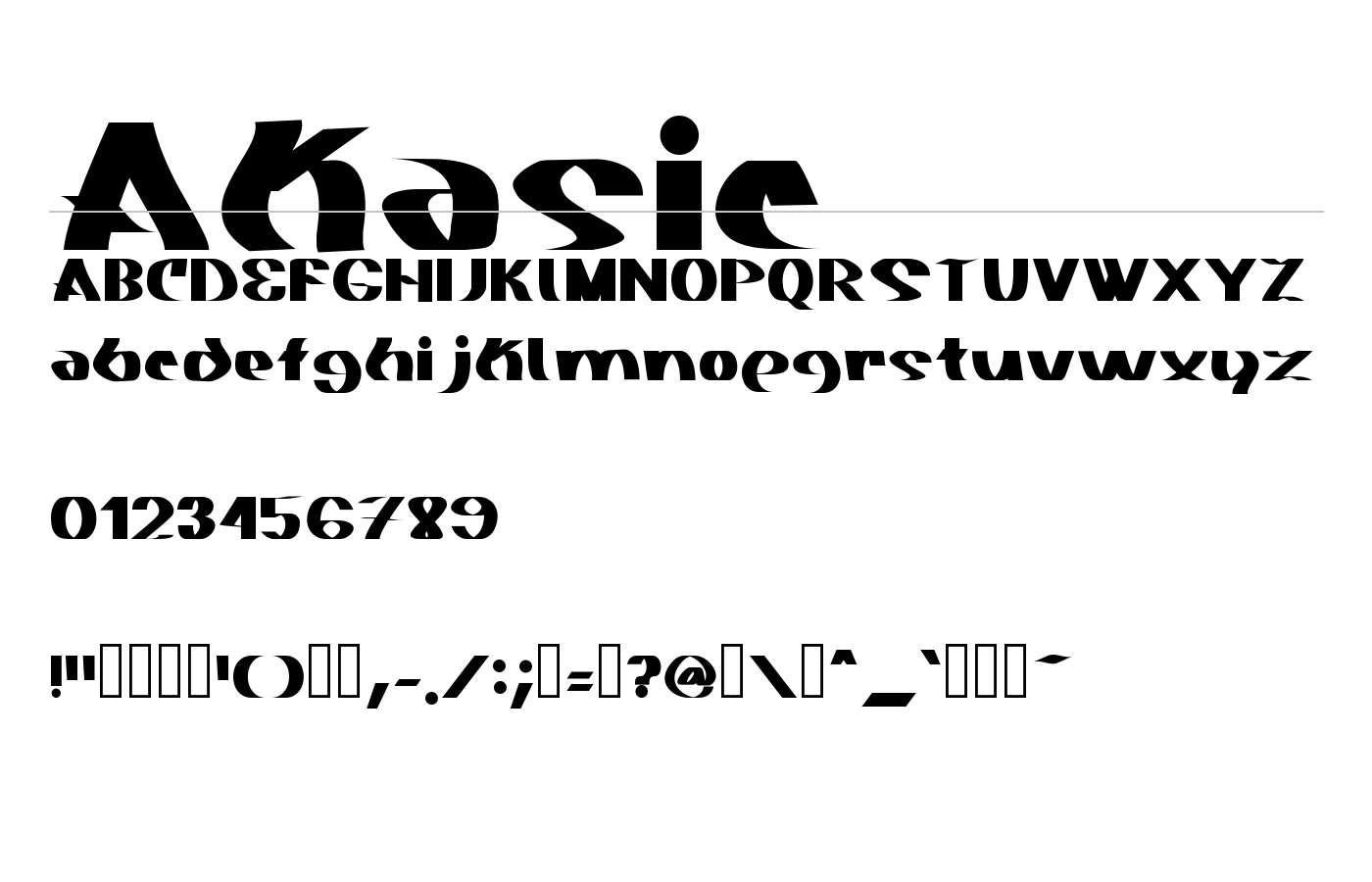
Akasic is a bold serif font with a high contrast between thick and thin strokes, featuring a modern, geometric influence with sharp, unconventional angles and unique letterforms. Its wide stance and artistic details give it a distinctive, avant-garde feel, making it ideal for eye-catching headlines, logos, or branding that seeks a strong, creative impression. This font works best in contexts where visual impact and individuality are key, such as fashion, editorial design, or expressive poster art.
Akasic Font
About Akasic Font